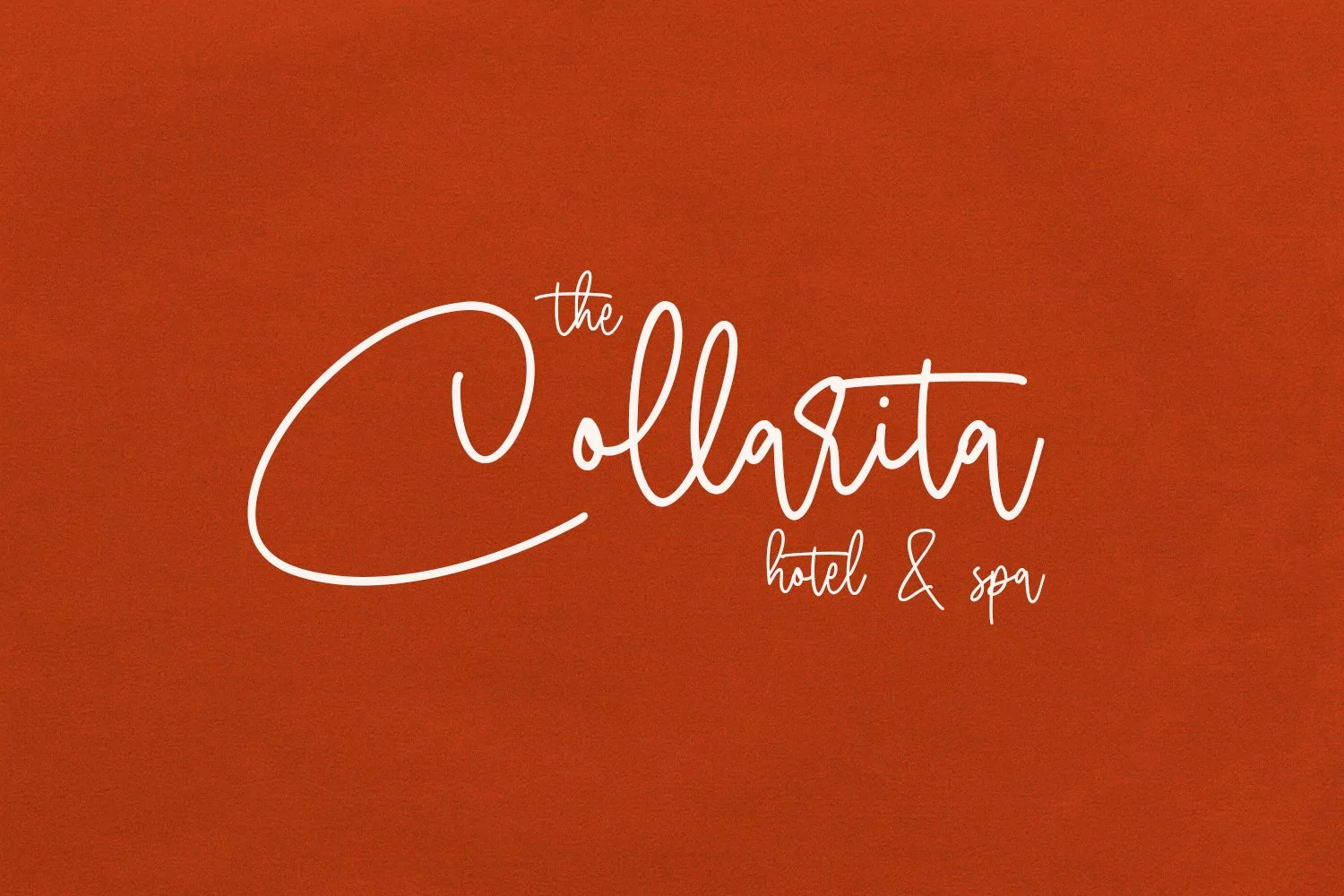
Rusty Cellair is an expressive signature script script font. With light mono-line consist stroke, fun character with a bit of ligatures and alternates. To give you an extra creative work. Rusty Cellair font support multilingual more than 100+ language. This font is good for logo design, Social media, Movie Titles, Books Titles, a short text even a long text letter and good for your secondary text font with sans or serif. Make a stunning work with Rusty Cellair font.
Rusty Cellair